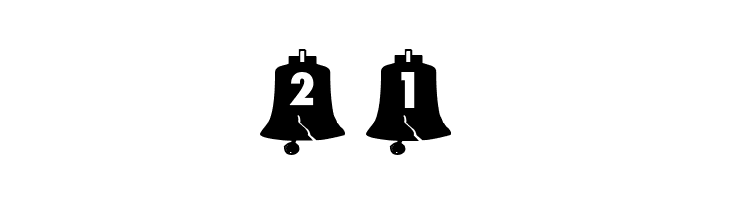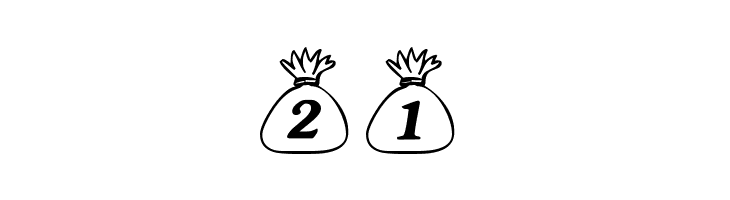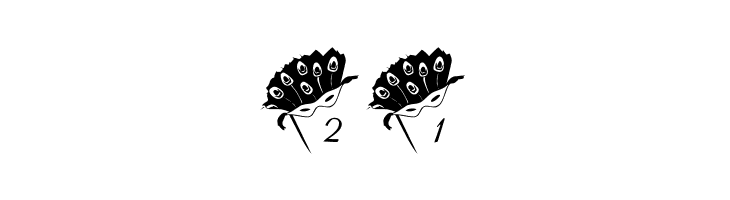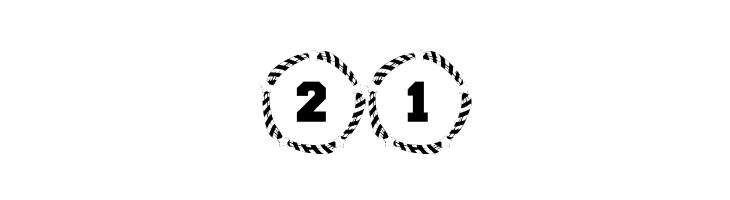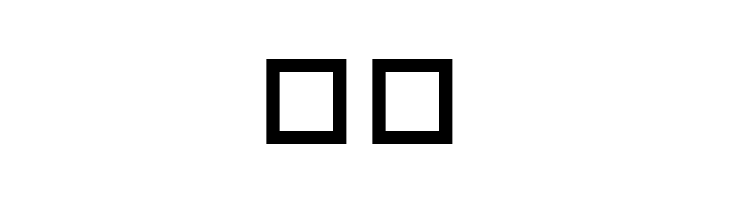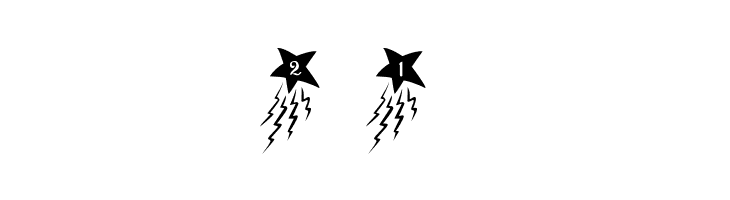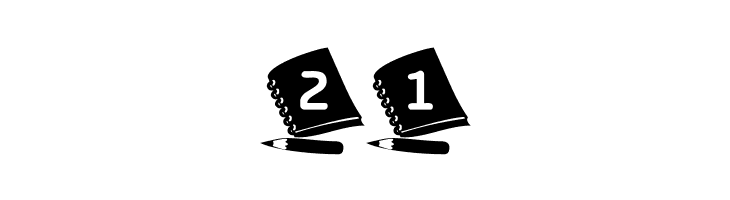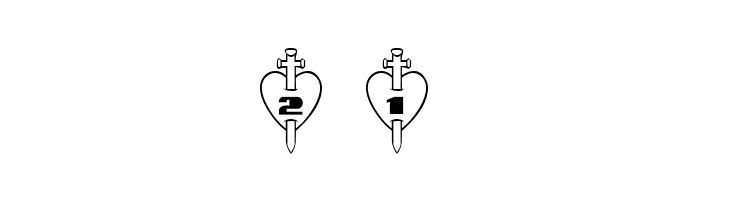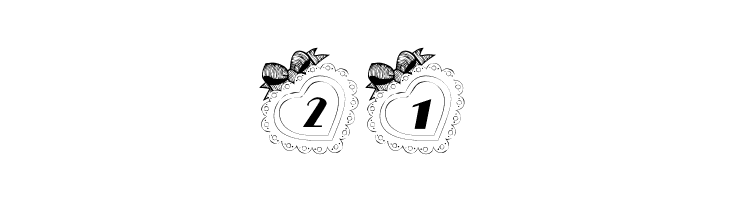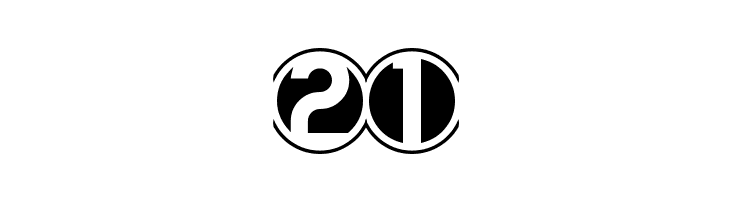
A decorative font with characters encased in bell silhouettes, ideal for thematic designs.
A playful font with characters enclosed in stylized loot bags, perfect for whimsical designs.
An elegant script font with a decorative mask motif above each character.
Bold uppercase font with decorative circular borders.
A decorative serif font with rose embellishments, offering a vintage and romantic style.
A bold, decorative font with star and lightning motifs.
A playful font with letters on tilted notebook pages, featuring bold, slanted characters.
A decorative font with characters enclosed in heart shapes topped with crosses.
An ornate, floral-encased serif font with a vintage charm.
A bold, slab serif font with high contrast and vintage appeal.
A bold, geometric font with characters enclosed in circles, offering a modern and industrial look.
A modern, geometric font with smooth, continuous lines and a minimalist design.
A modern, geometric font with a bold, uniform stroke and unique curves.
A vintage, typewriter-style slab serif font with a distressed texture.
A hand-drawn, twig-like font with an organic, rustic style.
A playful, modern font with rounded, bold uppercase and smooth lowercase letters.
A playful, bold font with rounded edges and a slightly condensed style.
A tall, narrow, and modern font with consistent stroke width and geometric elements.
Bold, slanted font with angular characters and tight spacing.
A modern, geometric font with rounded edges and a clean, streamlined appearance.
A bold, modern font with thick strokes and a strong presence.
A bold, 3D geometric font with a strong, architectural style.
A whimsical, heart-adorned font with a playful and romantic style.
A bold, expressive handwritten font with a graffiti-like style.
A bold, handwritten font with a playful and dynamic style.
A modern, geometric font with clean lines and a futuristic style.
A pixelated, monospaced font with a retro digital aesthetic.
A pixelated, retro-style font with a digital, blocky appearance.
A segmented, digital-style font resembling an LED display.
A digital display-inspired font with a segmented, italicized style.
A retro, pixelated font inspired by classic 8-bit video games.